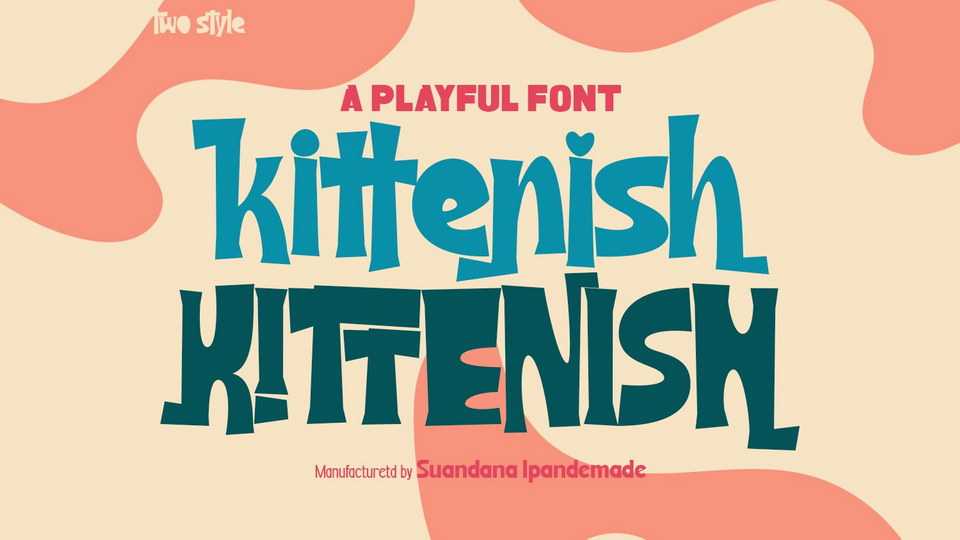
Download Kittenish font, a playful and fun display typeface. Kittenish will be perfect for book, title branding, product packaging, invitation, quotes, t-shirt, label, poster, logo etc.